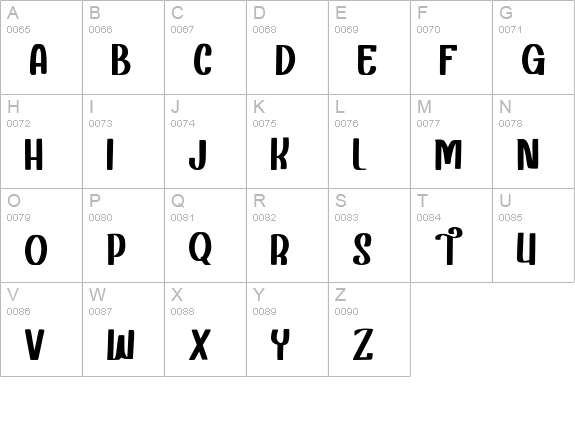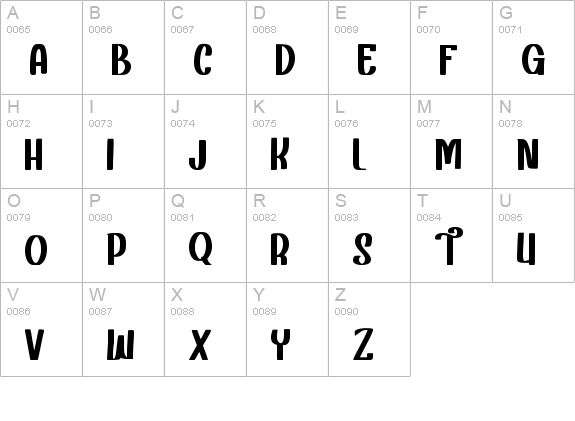
Hasta Lavista Font Details
Hasta Lavista is a demo font in the General > Sans-Serif category, designed by HydricDesign. It has been downloaded 154 times and is available for Windows, Mac and Linux.
Introducing Hasta Lavista font, a modern and sleek typeface that is sure to make a bold statement in any design project. This versatile font features clean lines and a contemporary aesthetic, making it perfect for a wide range of applications, from branding to social media graphics.
With its unique character and stylish appearance, Hasta Lavista font is ideal for adding a touch of sophistication to your designs. Whether you're creating a poster, logo, or website, this font will help you stand out from the crowd and make a lasting impression.